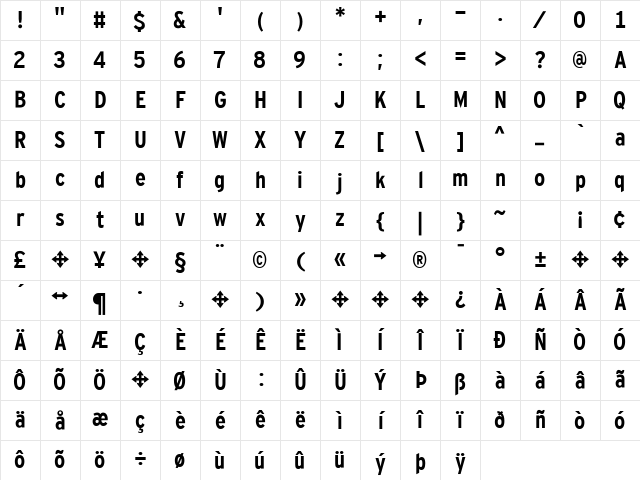
Complete Interstate Cond Mono Bold glyph index. Displaying only characters natively supported by Interstate Cond Mono Bold font.
Interstate Cond Mono uses fixed-width spacing throughout, giving it the structured, systematic character associated with coding environments and technical documentation. Its bold stroke weight gives it real presence on the page.
Pro Tip: Use Interstate Cond Mono with slightly increased line-height for extended reading - fixed-width spacing can feel dense in longer passages without extra breathing room.
Who designed the Interstate Cond Mono Bold font?
This font was published by Copr. Tobias Frere-Jones. Designed by Tobias Frere-Jones. Produced by The Font Bureau, Inc. Check the technical specs section for copyright and designer details.